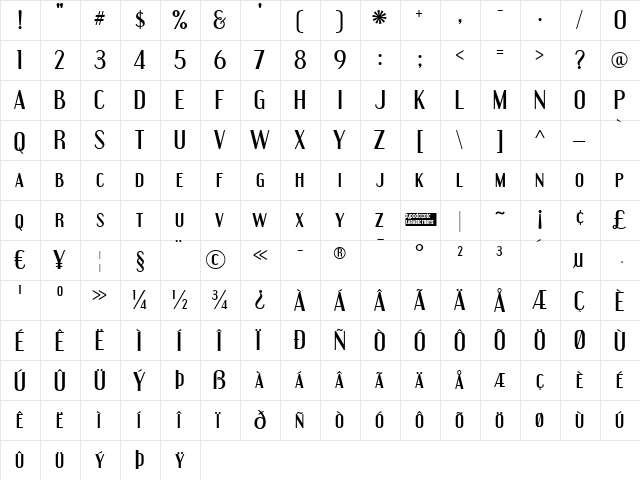
Engebrechtre Regular Font Preview
Engebrechtre Regular
Engebrechtre Regular Font Details
Design Context for Engebrechtre Typeface
Engebrechtre offers clean, dependable letterforms without strong stylistic allegiance, making it a practical choice for designers who need flexibility.